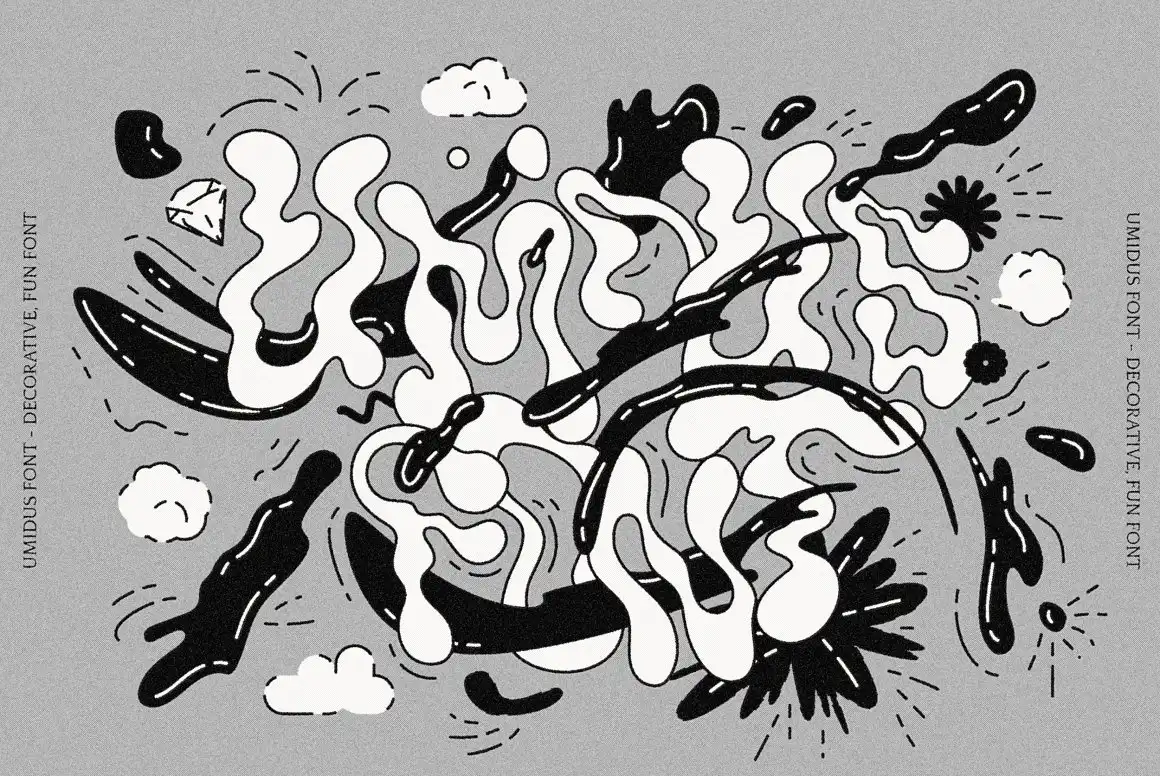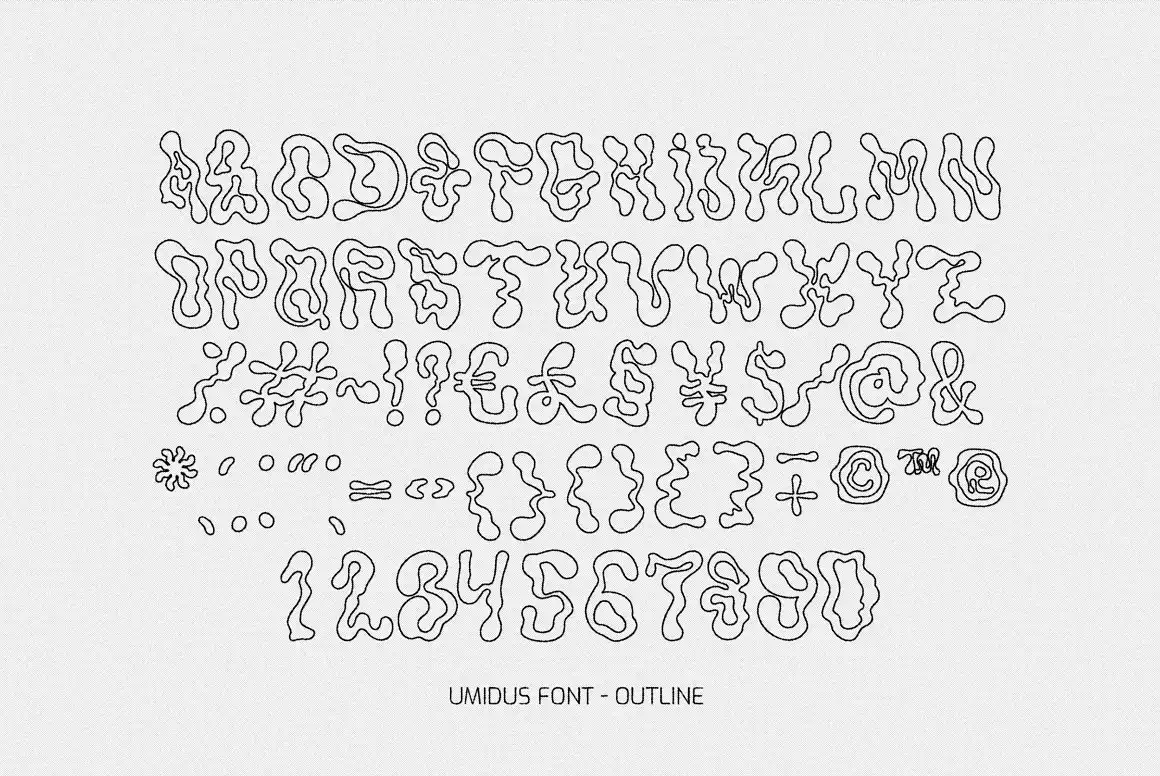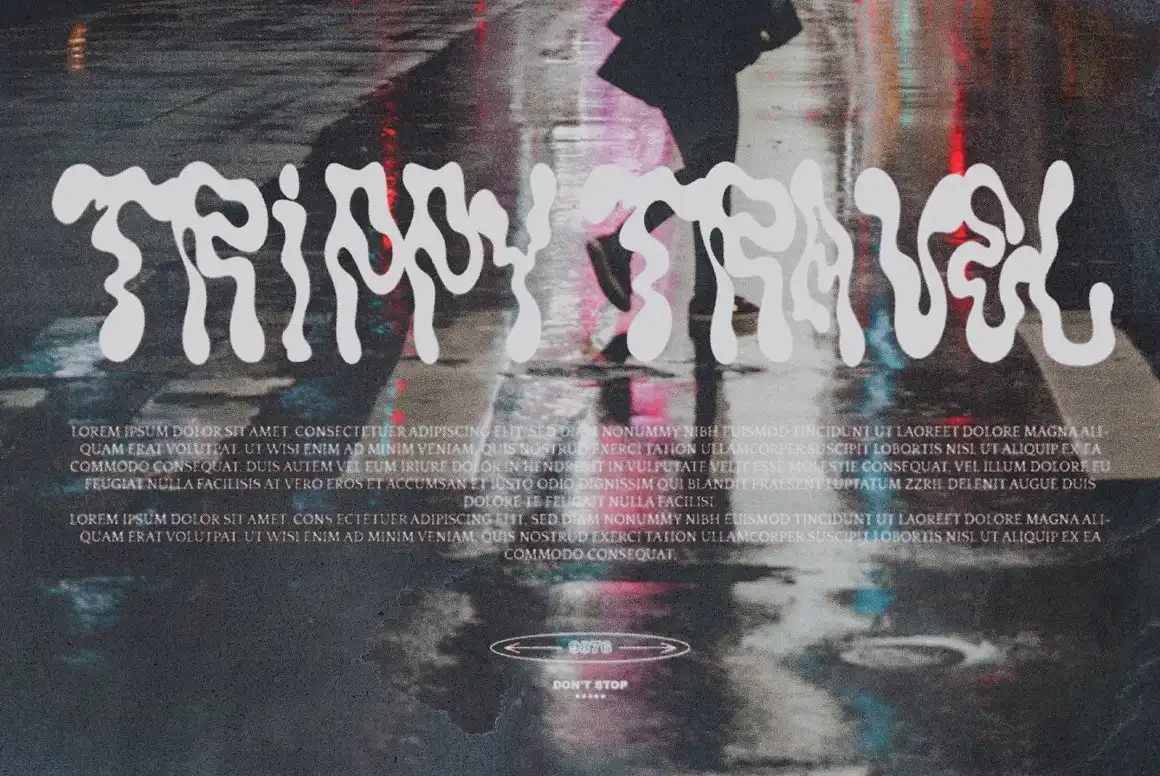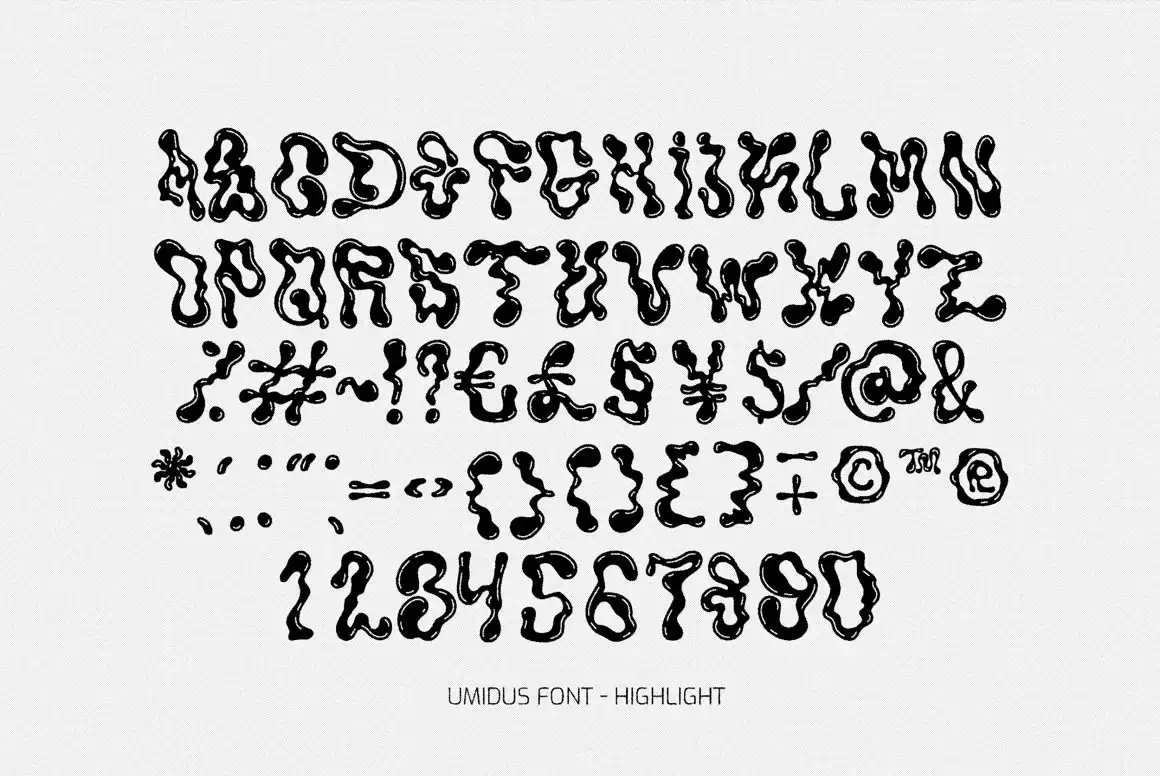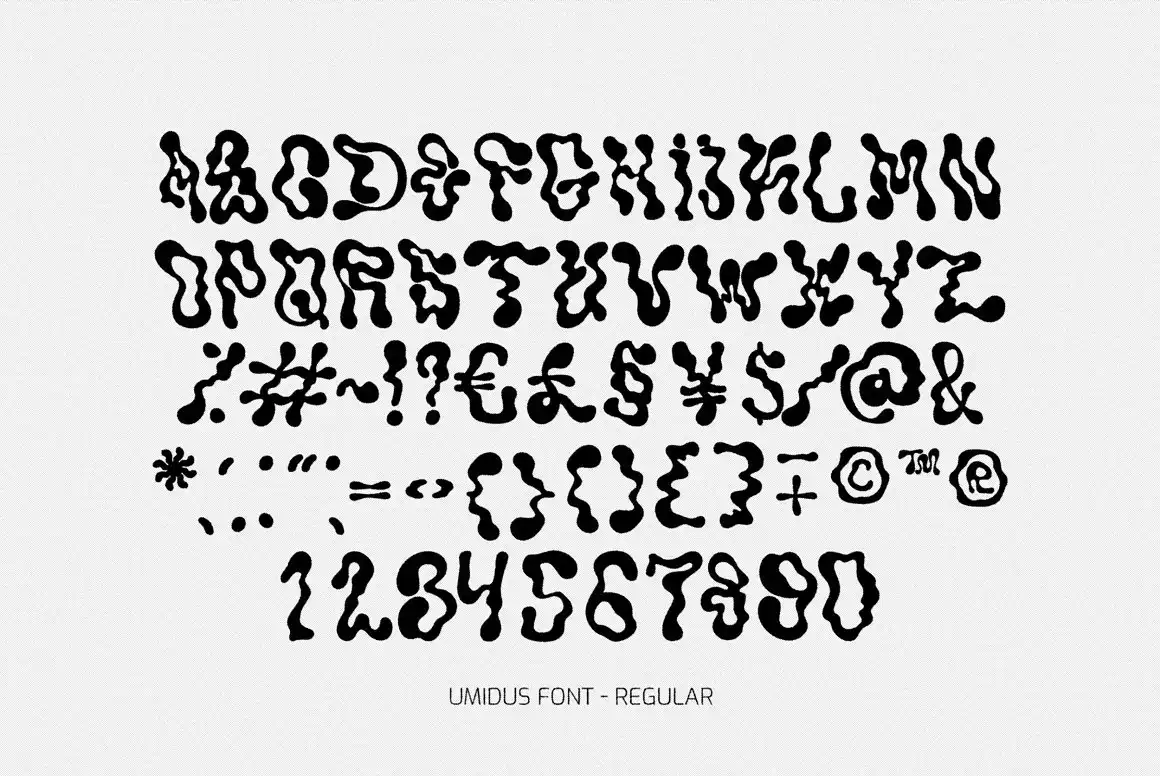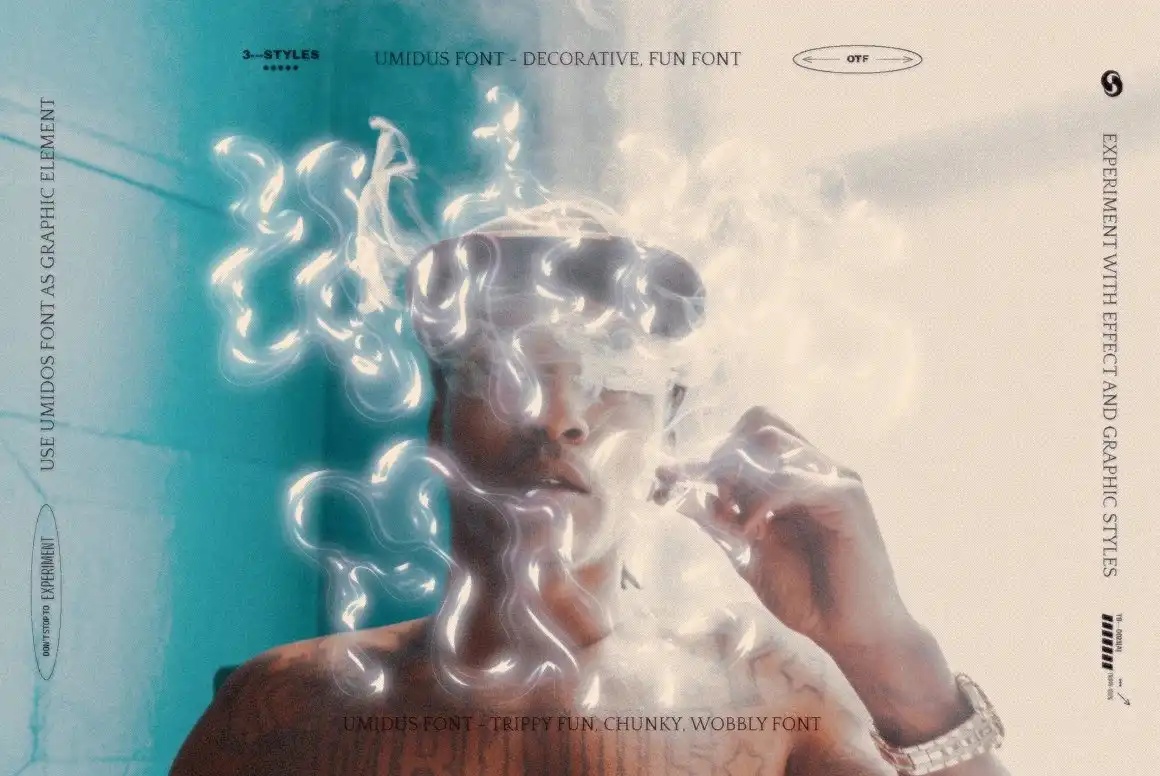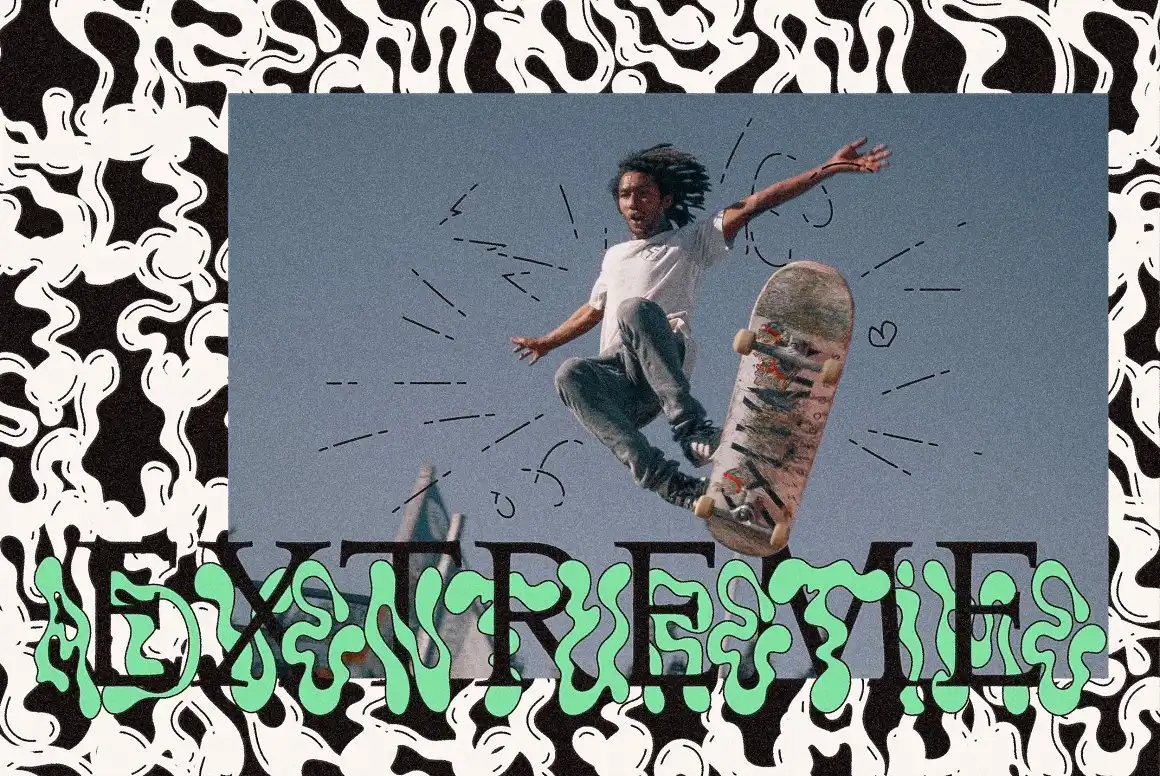
Introducing the Umidus Font – a mesmerizing trippy liquid font that’s ready to bring your creative projects to life! 🌈 This digital download offers instant access, making it a breeze to add a splash of psychedelic flair to your designs. Whether you’re crafting bold titles, festival posters, or eye-catching graphics for T-shirts and hoodies, this font is your perfect companion! 🎨✨
The Umidus Font is a unique, wavy decorative typeface that thrives on experimentation. Its quirky design encourages you to play with spacing and deformation, allowing your imagination to run wild! Don’t shy away from expressing your bold modern ideas—this font is all about standing out! 💥
- Three OTF Files: Includes 3 font styles—plane black, transparent outline, and black with highlights to suit any project.
- Creative Freedom: Perfect for branding, logo design, and any graphic design project that needs a playful touch!
This font is ideal for:
- Graphic designers looking for a unique typeface for branding
- Illustrators who want to add a trippy touch to their artwork
- Anyone creating vibrant posters or T-shirt designs
- Web designers wanting to incorporate cool trippy fonts into their projects